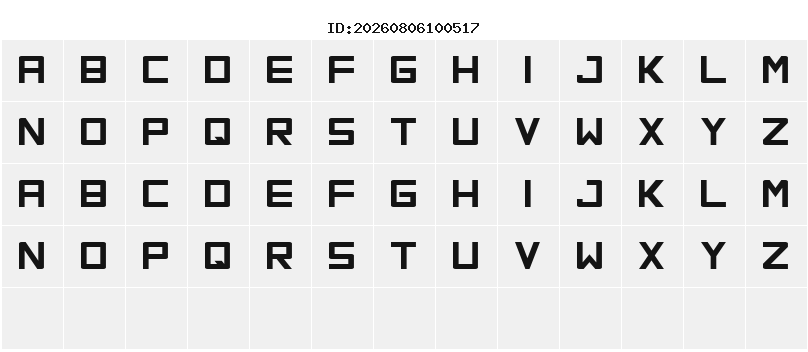
• Font Name: Orena
• Designer: Carlos Matteoli
About Orena.ttf
Orena.ttf is a modern, elegant sans-serif font designed for ultimate readability and visual harmony. Perfect for branding, headlines, web design, and print materials.